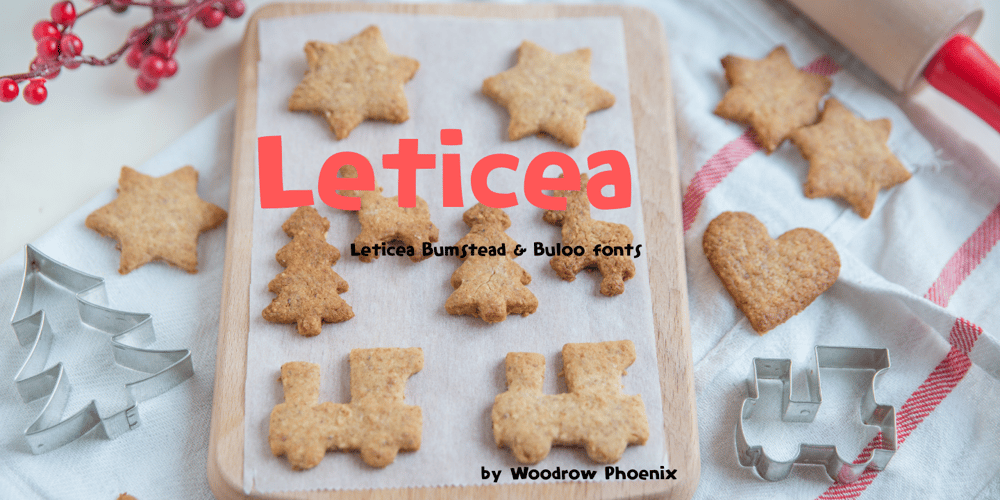
Leticea Bumstead Font Family was designed by Phoenix Woodrow and published by FontHaus. Leticea Bumstead contains 1 styles and family package options. Designed by Woodrow Phoenix, Leticea Buloo is a display font and close cousin to Leticea Bumstead. This version was a custom version with some different characters. Although Buloo was created for a custom purposes it remains completely compatible for children’s books and comic strips. The design is graphic and playful.